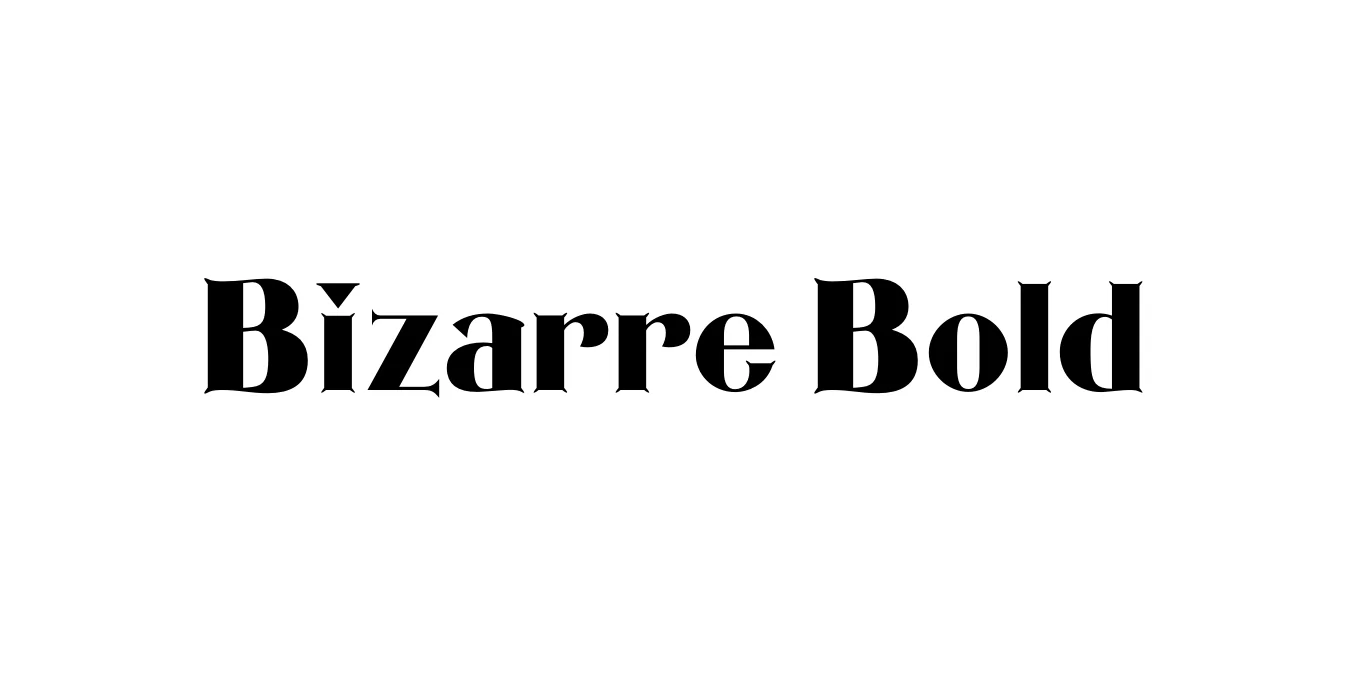
Bizarre Bold
Bizarre Bold is a striking display typeface designed to command attention through its unconventional silhouettes and thick, expressive strokes. Developed as an experimental project, this font pushes the boundaries of traditional letterforms by incorporating organic curves and unexpected geometric shifts. Its primary objective is to break away from the monotony of standard sans-serifs, offering a visual rhythm that is both chaotic and harmoniously balanced for modern graphic needs.
Drawing inspiration from the 1970s psychedelic movement and contemporary street art culture, the font's high-contrast weight ensures maximum impact in large formats. It has quickly become a favorite for branding projects, poster design, and album covers where a sense of rebellion and artistic flair is required. The robust nature of the characters makes it ideal for digital displays where personality is prioritized over minimalist simplicity.
Bizarre Bold Best Uses
Creating impactful logos for creative agencies and fashion labels.
Eye-catching headlines in music or lifestyle magazines.
Bold promotional graphics that require a distinct visual identity.